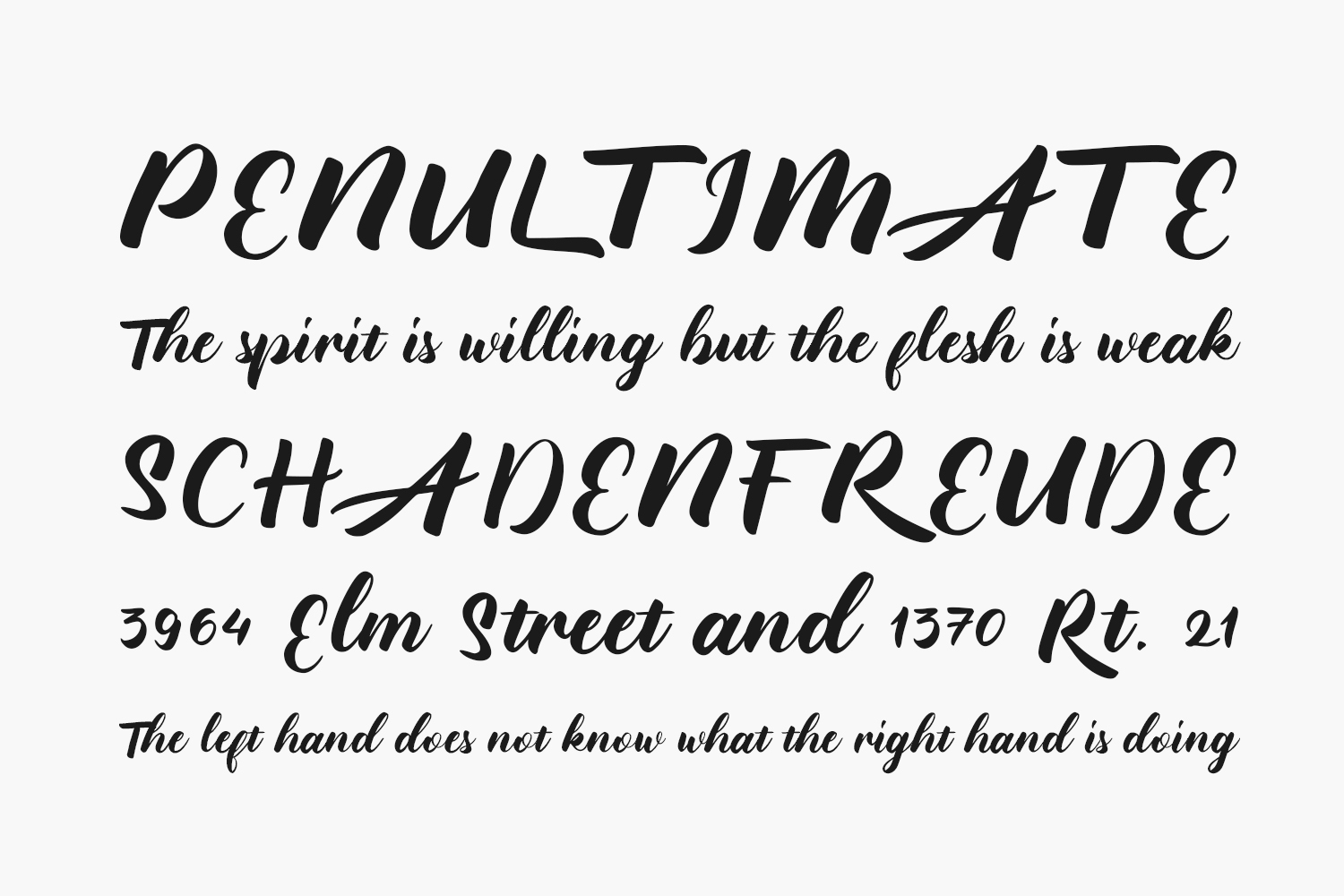
Bellugra Free Font is a stunning and emotional typeface that exudes beauty and elegance. Its sweeping, flowing lines and graceful curves give it a sense of sophistication and refinement, while its delicate, feminine touch adds a touch of romance and charm. Whether you’re using it to create stunning invitations, handwritten notes, or to add a touch of elegance to your designs, Bellugra Free Font is sure to evoke feelings of beauty and emotion in all who see it.